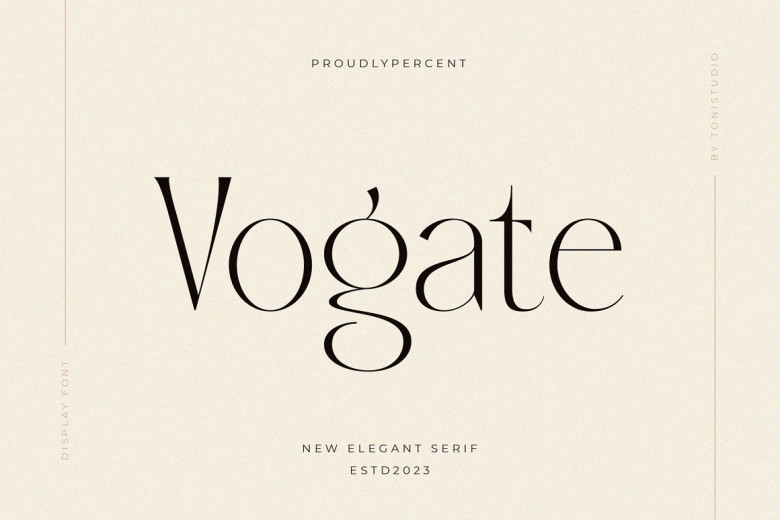
Vogate Font
Vogate is an elegant and exotic font designed to add sophistication and sophistication to your projects. Combining contemporary with timeless elegance, Vogate can add the feeling of timeless sophistication that will bring life and elegance into any design you create using it.
Ideal for titles posters branding packaging, presentations, logos, headlines, quotes, magazine, titles websites, layouts invitations, books packages, designs packaging, designs or any creative endeavor, Vogate makes an excellent choice when modern meets timeless elegance is desired in design projects.
Vogate Serif Font